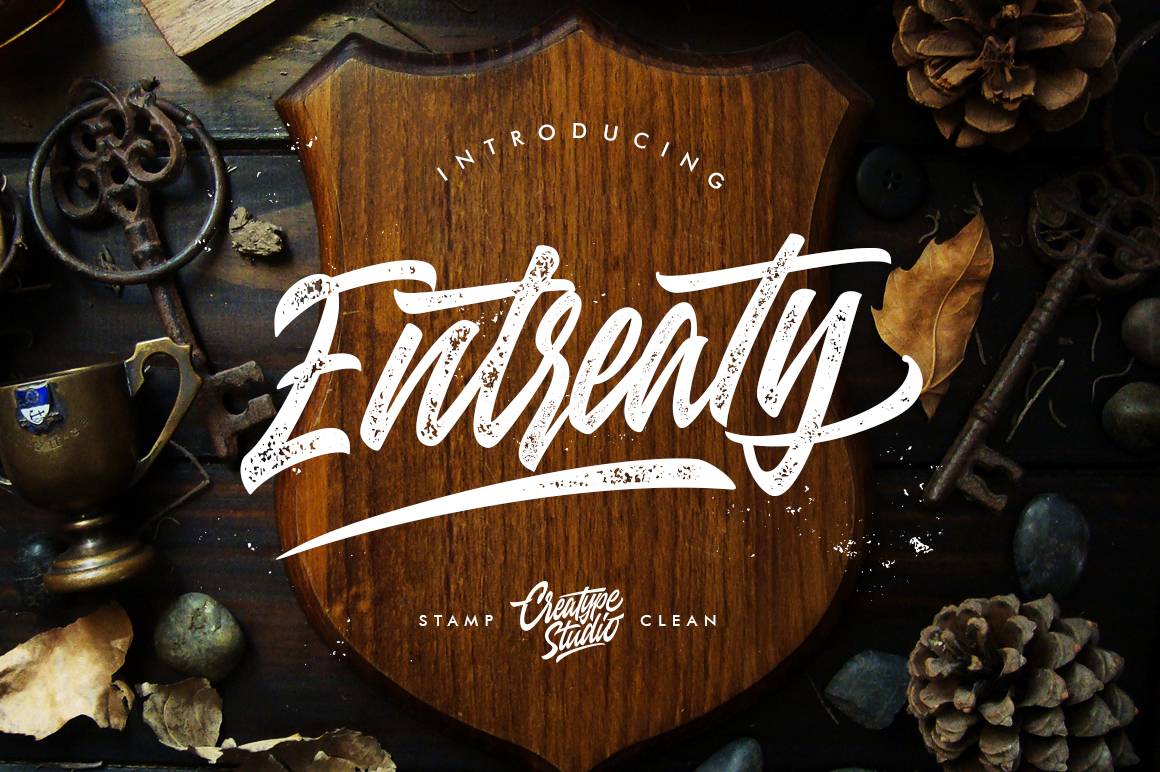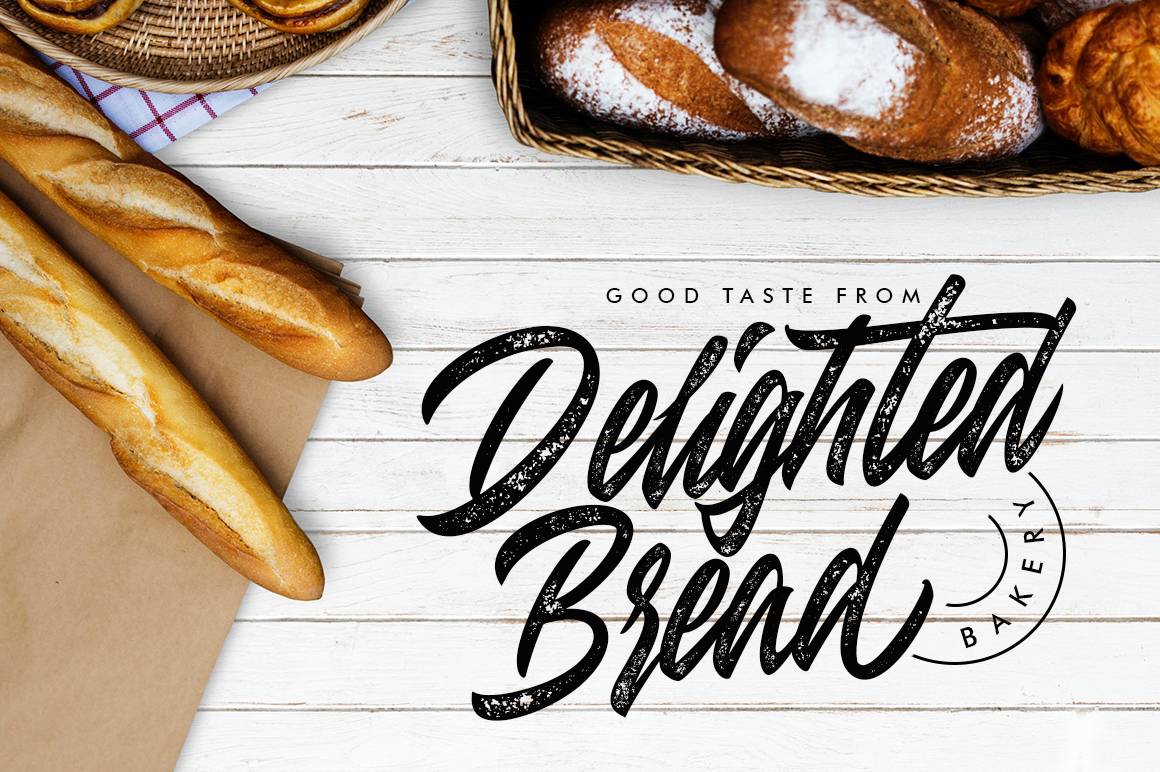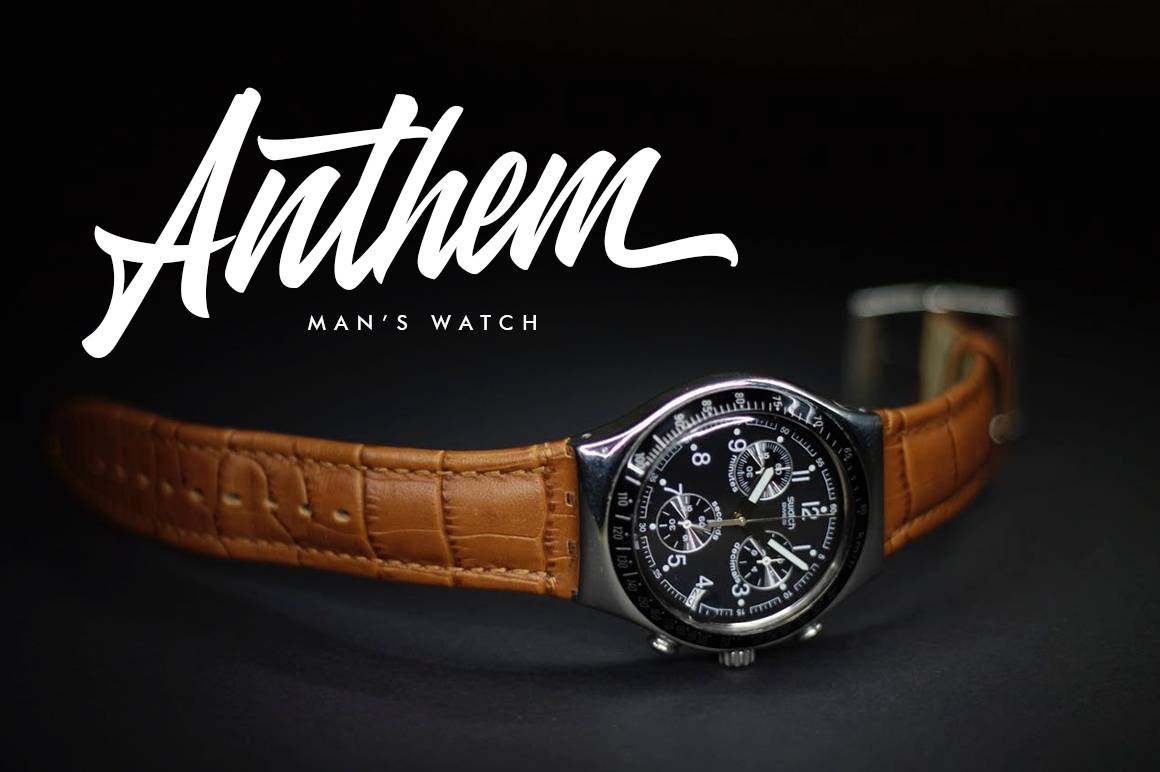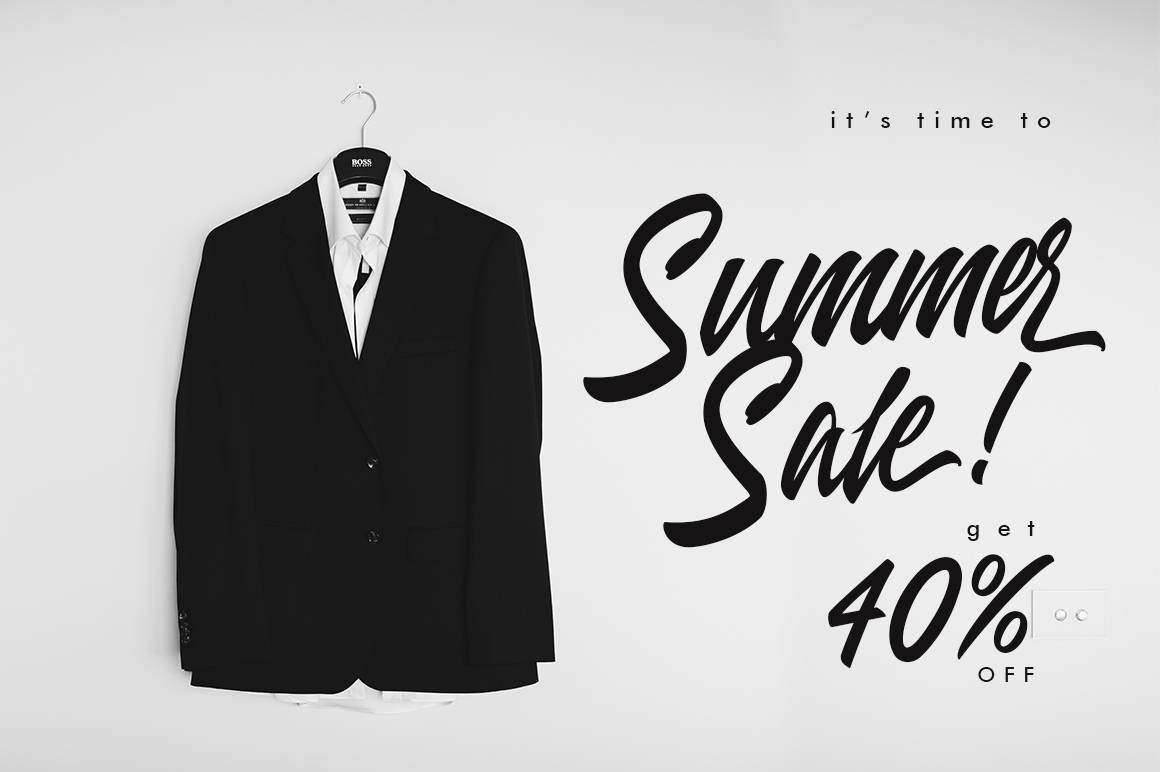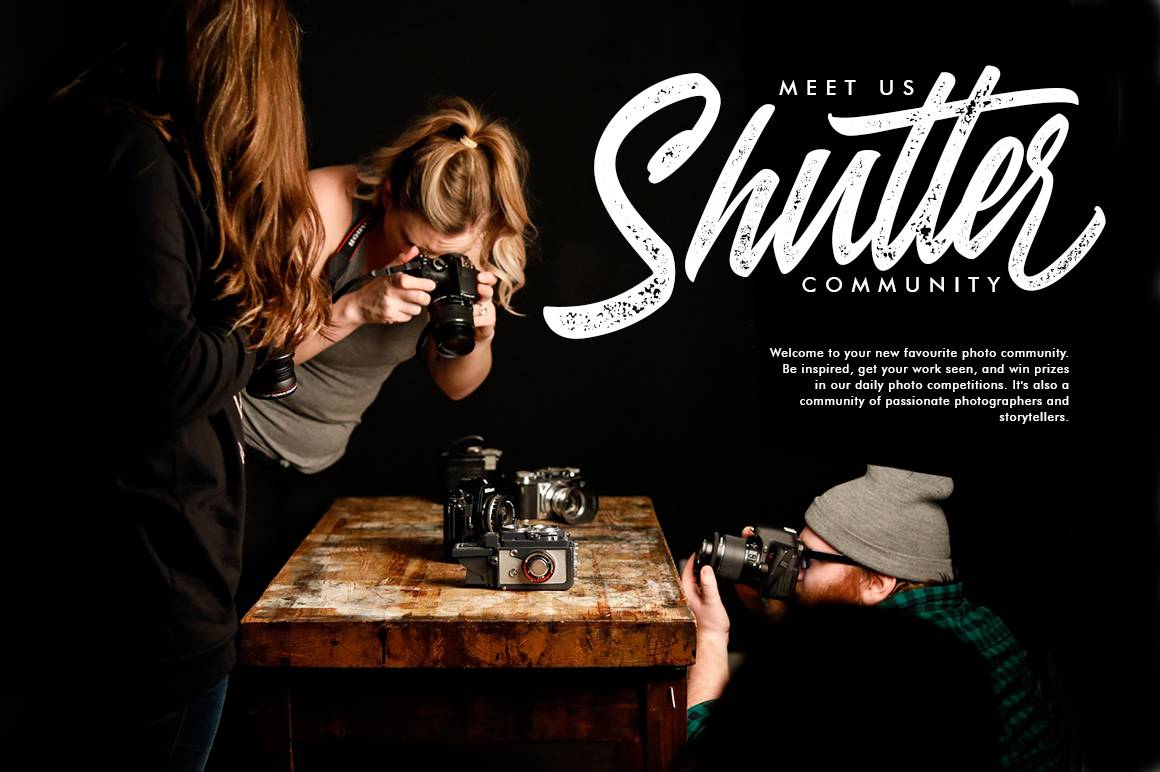
Entreaty is a bold, expressive script font with a dynamic and flowing style that captures the feel of natural handwriting. Its strong strokes and slightly condensed letterforms give it a confident, energetic personality, making it ideal for branding, packaging, and headlines where a lively, stylish touch is desired. This font works best in creative and modern designs that want to convey warmth and approachability with a sense of flair.
Entreaty Font
About Entreaty Font